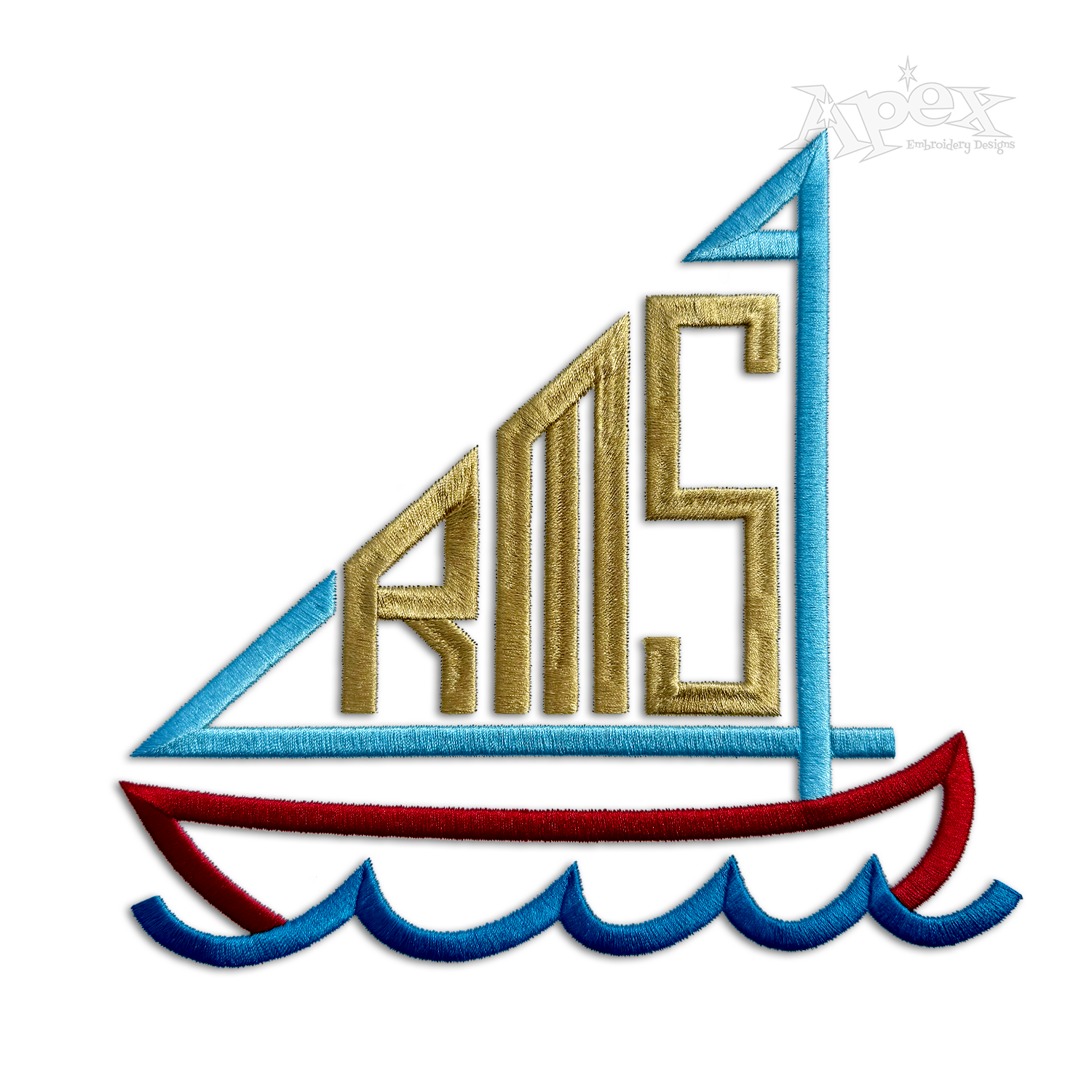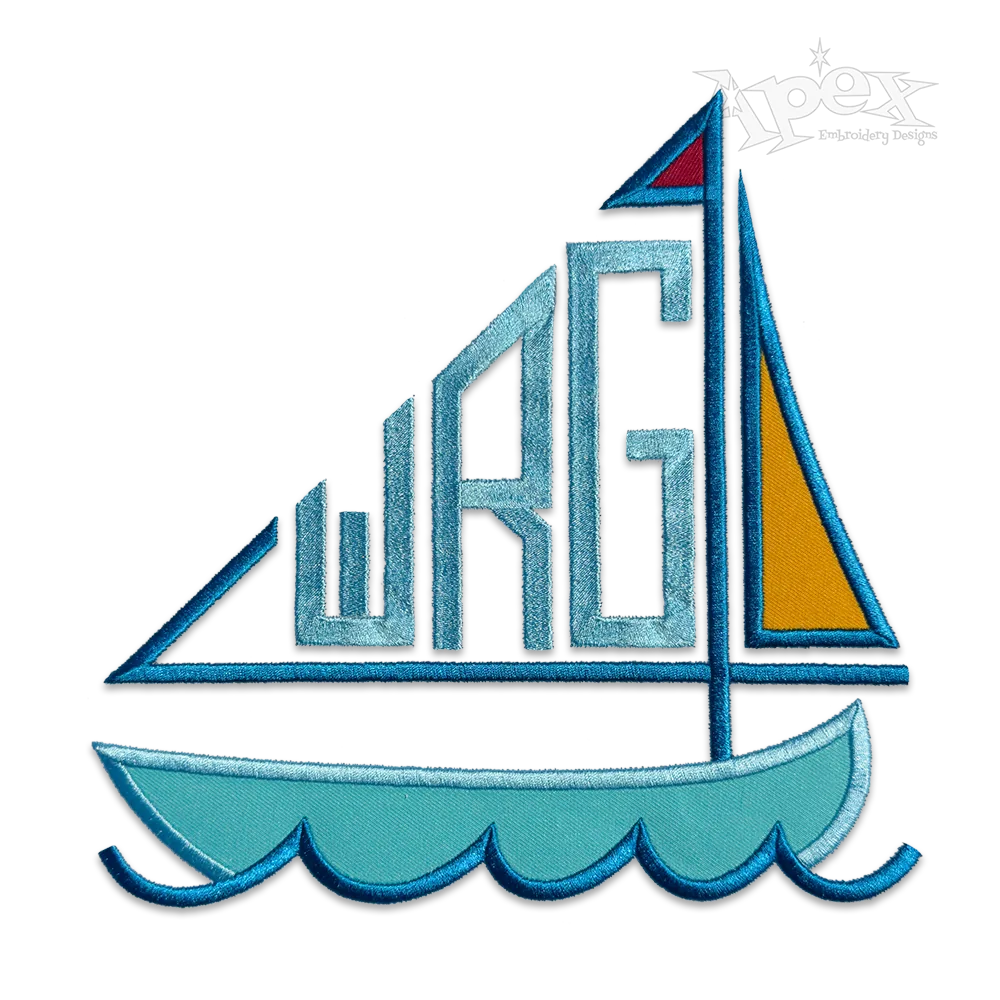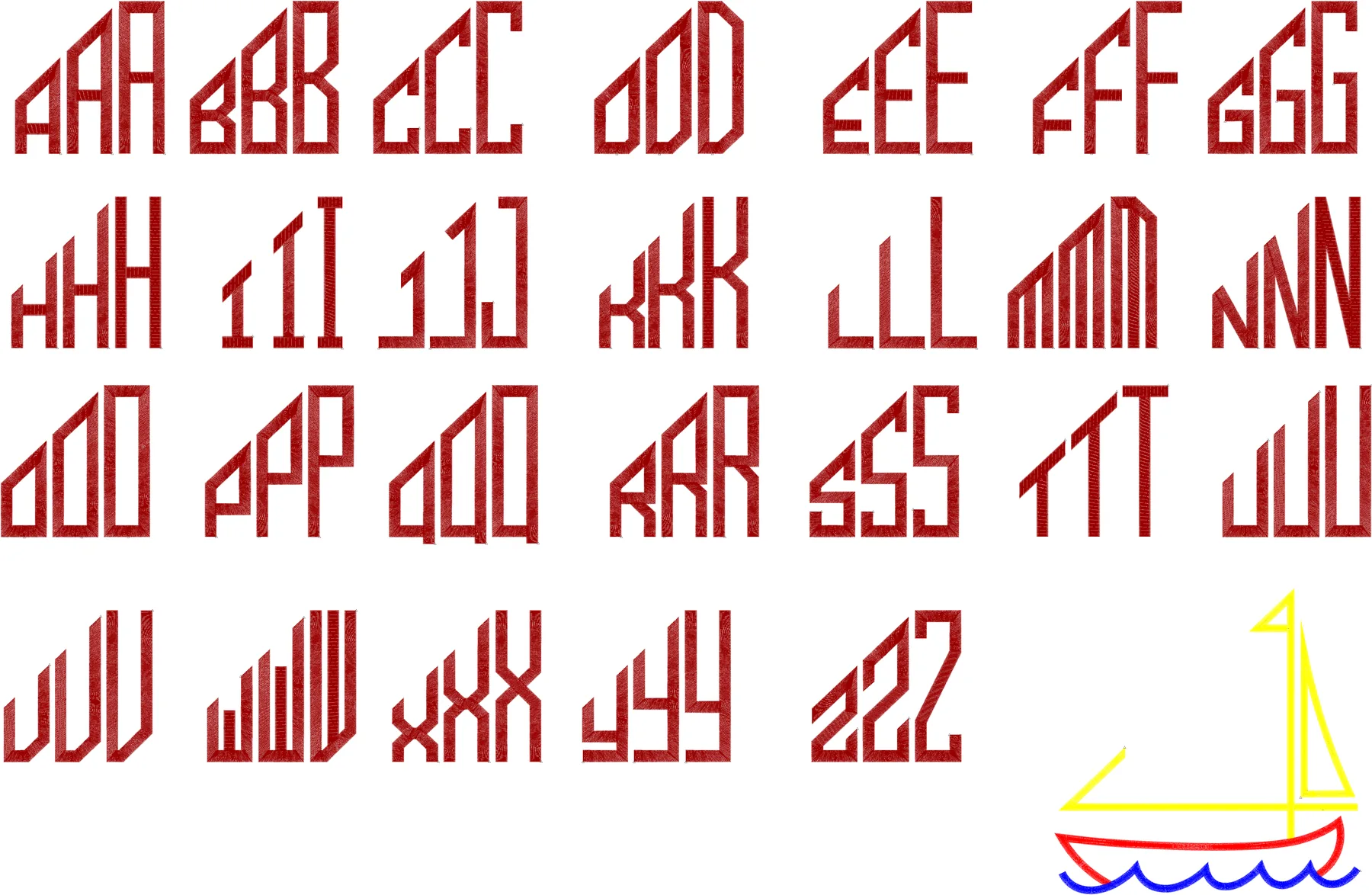
Boat Monogram Fill and Applique Embroidery Font
Create Sailboat Monogram Bundle style personalized gifts and home décor . Fancy Crown Queen old world Monogram Embroidery Font. New Orleans Monogram Featuring a classic with Europe Regal stylish 3-color embroidery monogram set is perfect for Swimwear Summer hats, linens, towels, baby gifts, tote bags, and more.
This premium Boat Bundle embroidery font collection includes complete size sets with uppercase monogram letters designed for creating stunning 3-letter monograms. Each font comes professionally digitized for smooth stitching and excellent embroidery results. Apex has digitized machine embroidery fonts for over 25 years.
You get 2 Fonts Fill and Applique
- Sailboat Monogram Font
- Perfect for 3-Letter Monograms
- Custom Home Décor Projects